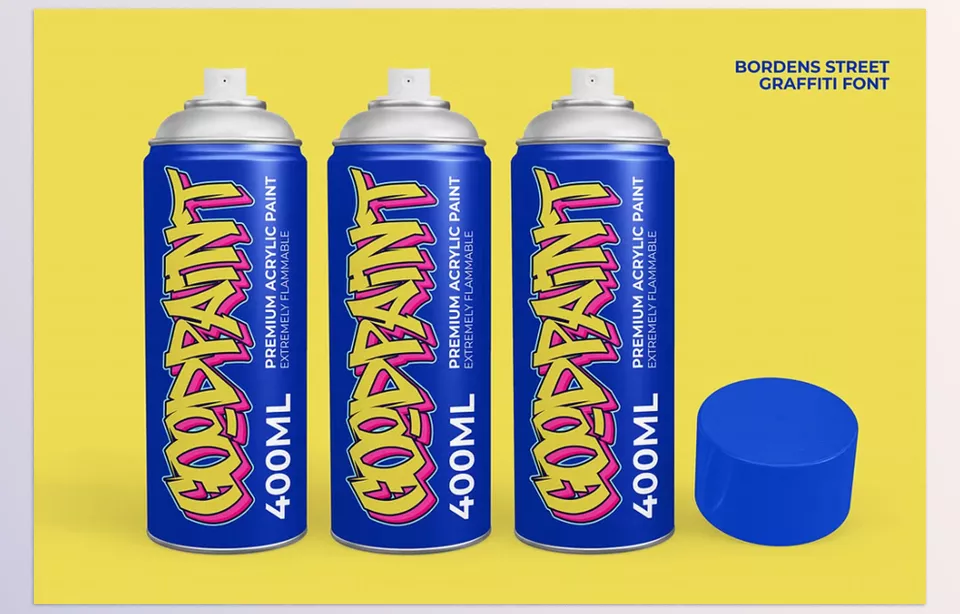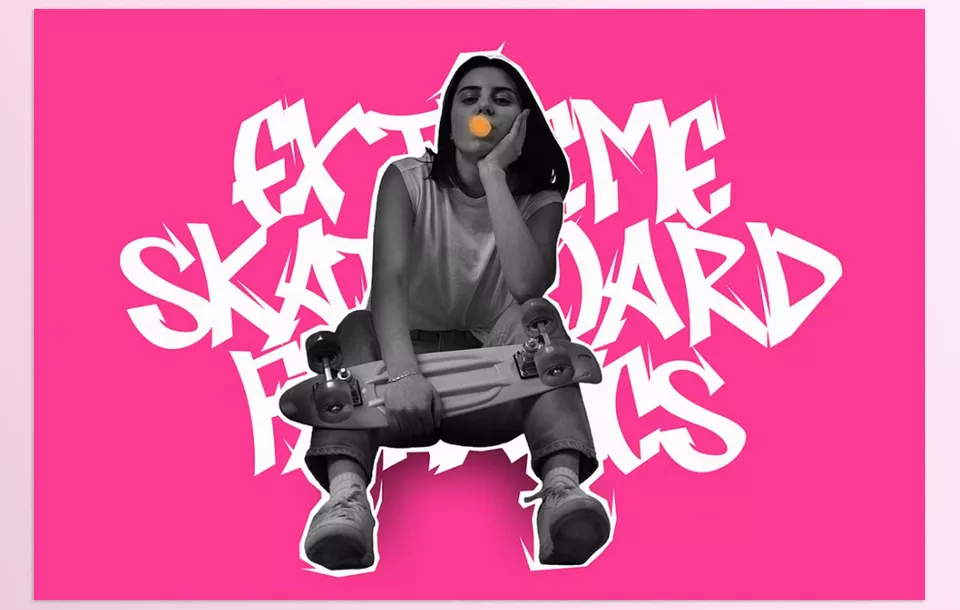
Boordens Street Graffiti Font is the perfect combination of bold and edgy while making sure to express street art’s raw energy, giving your designs more life. Boordens Street – Graffiti easily conveys a sense of urbanism and rebellion with the help of dynamic strokes, as well as authentic graffiti art. Posters, branding, and album covers can use the font with the assurance that their text will be portrayed in a strong manner.
• Authentic Street Style: Urban streets lack the dainty touch of basic design elements, which adds to the font’s grit.
• Catchy Presence: The font’s thick and aggressive strokes capture instant attention.
Image 1: Energize your designs with this bold, urban typeface.
Boordens Street Graffiti Font - Energize your designs with this bold, urban typeface.
Image 2: Capture the essence of street art with every word.
Boordens Street Graffiti Font - Capture the essence of street art with every word.